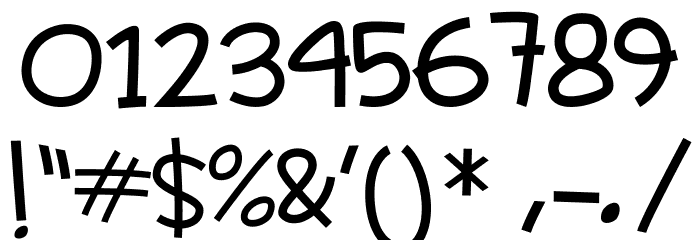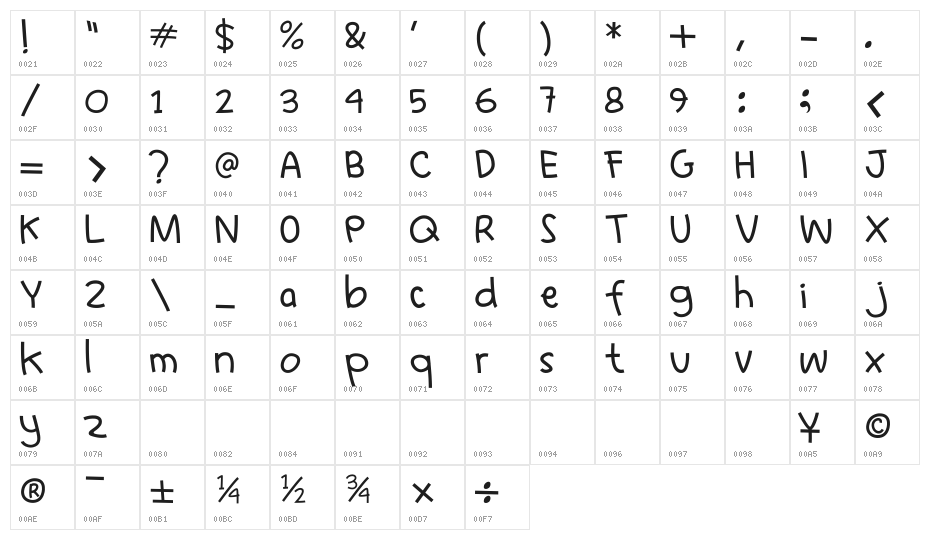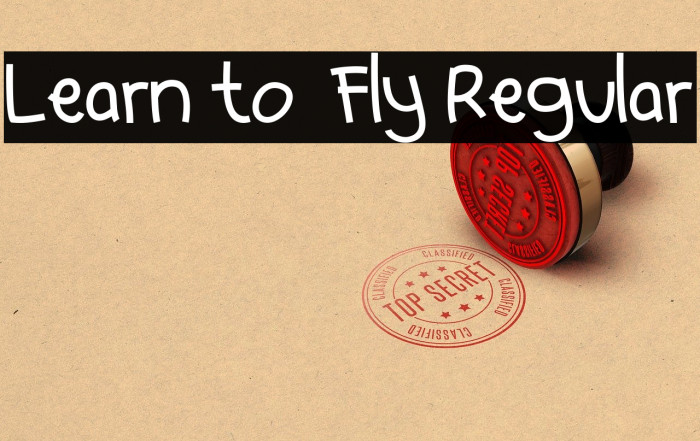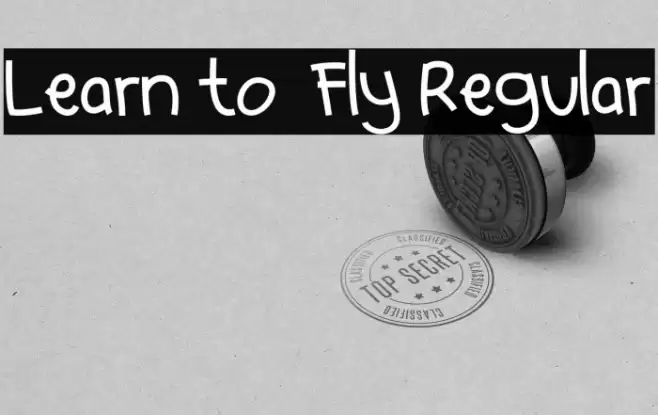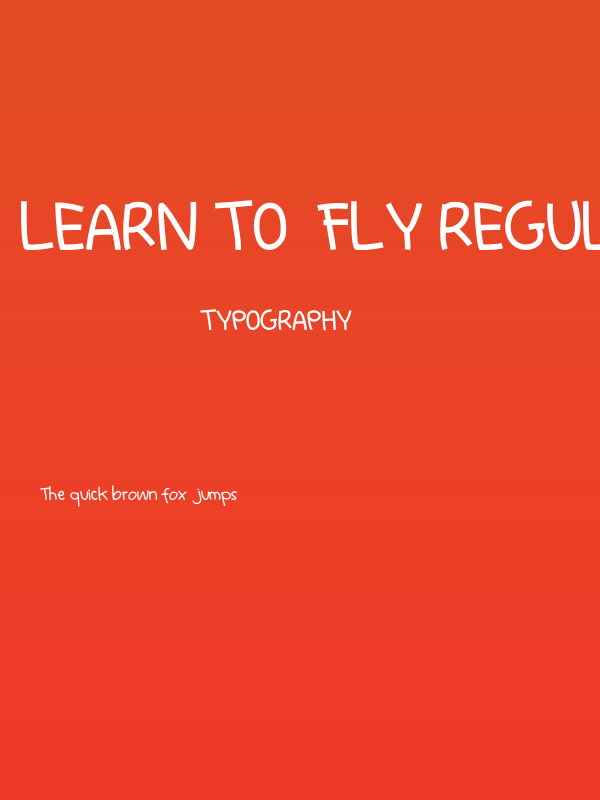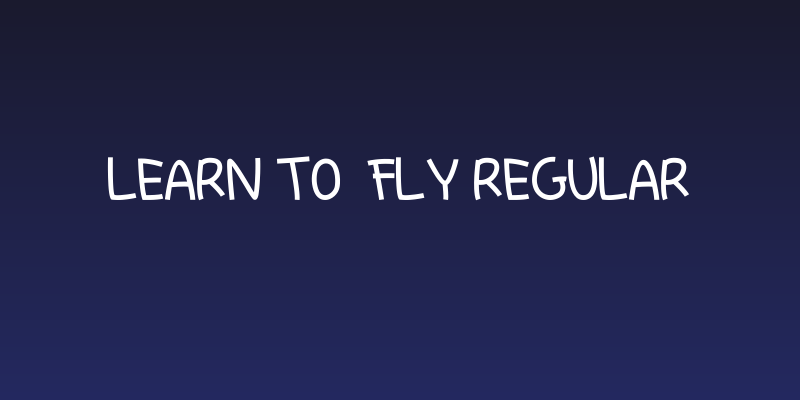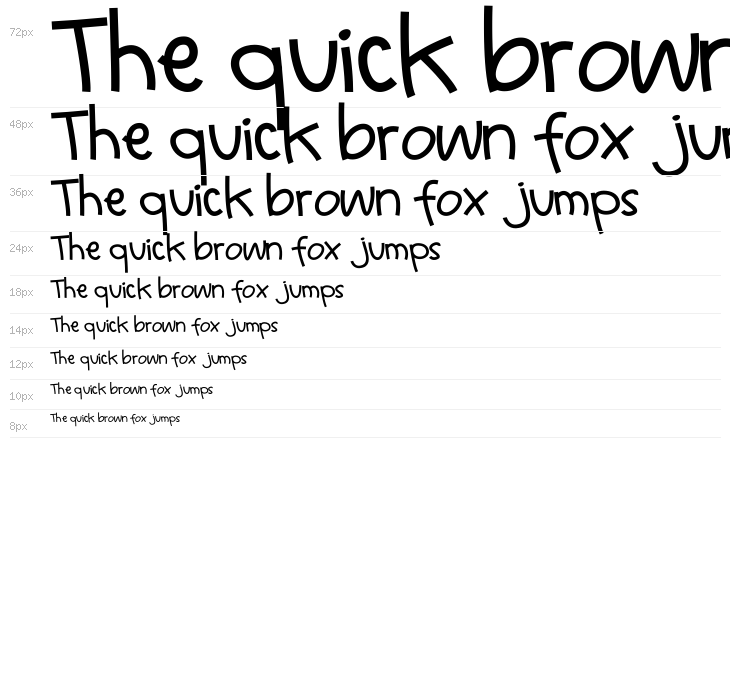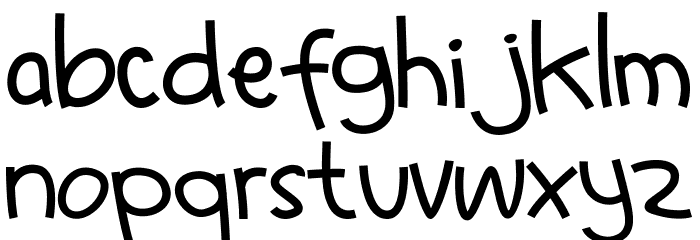
Learn to Fly Regular Font
Learn to Fly Regular Description
This playful and informal font features a handwritten style with a casual, friendly appearance. The letters are slightly irregular, giving it a whimsical and approachable feel. The uppercase and lowercase characters maintain a consistent style, with rounded edges and a slight tilt, adding to its charm. The numerals and special characters follow the same playful design, making it versatile for various uses. The overall look is reminiscent of a child's handwriting, making it perfect for projects that require a lighthearted and fun touch.
| Proposed Projects | Ideal for children's books, greeting cards, playful branding, and casual invitations. |